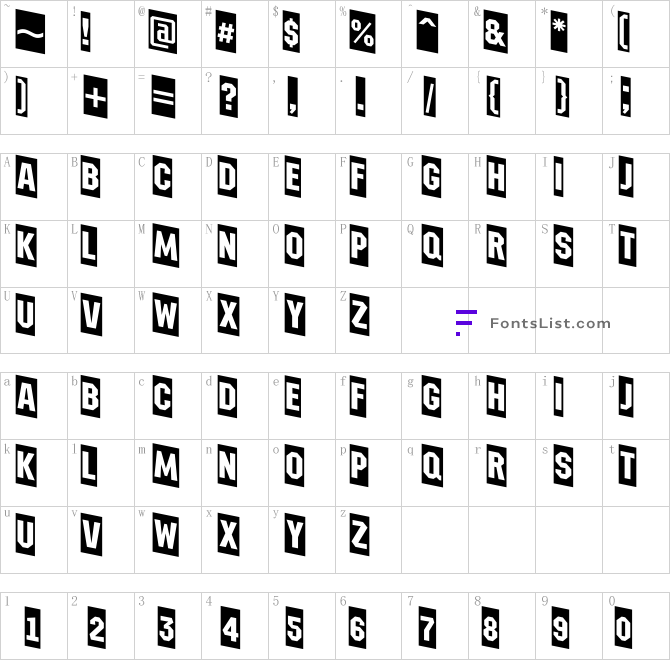
a_MachinaNovaCmDn.ttf is a very beautiful artistic font, a_MachinaNovaCmDn.ttf is widely used in the design and printing of various books and pictures,a_MachinaNovaCmDn.ttf has a strong visual impact,a_MachinaNovaCmDn.ttf is a commonly used font in newspapers, magazines and books, and is used in posters, e-commerce Poster design, store design, logo design, font design and other fields.a_MachinaNovaCmDn.